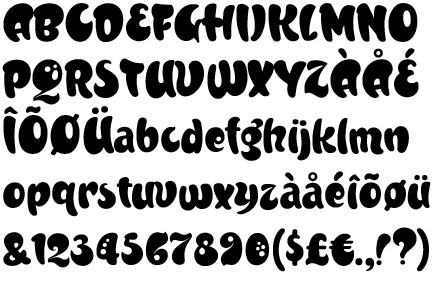
Jabberwub Font
Jabberwub Font is perfect for playful children's brands, whimsical toy packaging, creative storytelling projects, imaginative book covers, fantasy gaming materials, quirky entertainment venues, cheerful birthday invitations, animated character designs, fun educational materials, magical theme park signage, creative workshop branding, and delightfully nonsensical communications.
What makes Jabberwub Font exciting is its whimsical imagination that captures the delightful nonsense and creative wordplay of fantastical storytelling through playfully bizarre letterforms that dance with literary absurdity and childlike wonder. This enchanting typeface embodies the essence of creative imagination and linguistic playfulness, combining quirky character shapes with joyful unpredictability that resonates with audiences seeking fun, creativity, and the magical world of imaginative storytelling. The font's wonderfully eccentric character and playful variations create immediate smiles while maintaining the readability essential for children's literature and fantasy applications. Its nonsensical personality makes it perfect for brands that want to communicate creativity, wonder, and the transformative power of imagination and literary adventure.
The Jabberwub Font family includes regular and bold weights, featuring whimsical alternates, playful ligatures, and fantastical design elements. The character set incorporates magical symbols, imaginative numerals, and wonderfully weird punctuation marks that enhance the font's nonsensical character and provide designers with comprehensive fantasy typography solutions for delightfully creative brand expressions.